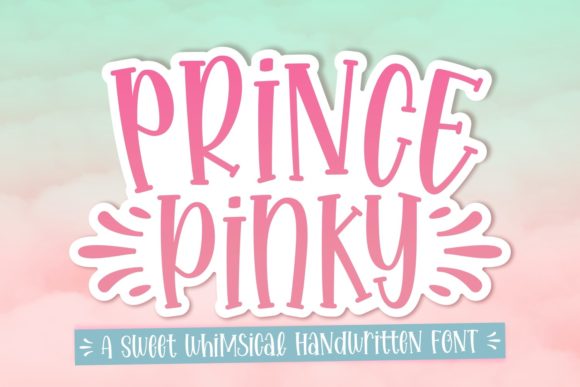
Step into the realm of artistic expression with Prince Pinky Font, a delightful creation from the font house of Jasm (7NTypes). This captivating font family belongs to the display category, and it's specially designed to add a touch of charm and playfulness to your graphic designs.
Prince Pinky Font exudes an irresistibly youthful vibe, with its chunky letters and playful curves. It's like a breath of fresh air, bringing a sense of vibrancy and energy to any design project. Whether you're creating album covers, posters, flyers, or social media graphics, this font will make your designs stand out from the crowd.
Imagine the impact of Prince Pinky Font on your next cover art project. Its bold and cheerful characters will capture attention and draw viewers into your design. The font's inherent friendliness and approachability make it perfect for conveying a sense of warmth and positivity. Whether you're designing for a children's book, a whimsical brand identity, or a lighthearted event flyer, Prince Pinky Font will bring a smile to your audience's faces.
The versatility of Prince Pinky Font extends beyond cover art. Its playful nature makes it ideal for a wide range of design applications. Add a touch of whimsy to your invitations, greeting cards, and social media posts. Create eye-catching headlines, logos, and branding elements that exude a sense of fun and creativity. With Prince Pinky Font, the possibilities are endless.
This font is not just a collection of letters; it's an invitation to let your imagination run wild. Its enchanting aura will inspire you to think outside the box and create designs that are truly unique and memorable. Embrace the playful spirit of Prince Pinky Font and embark on a journey of artistic discovery. Let your designs blossom with creativity and enchantment.